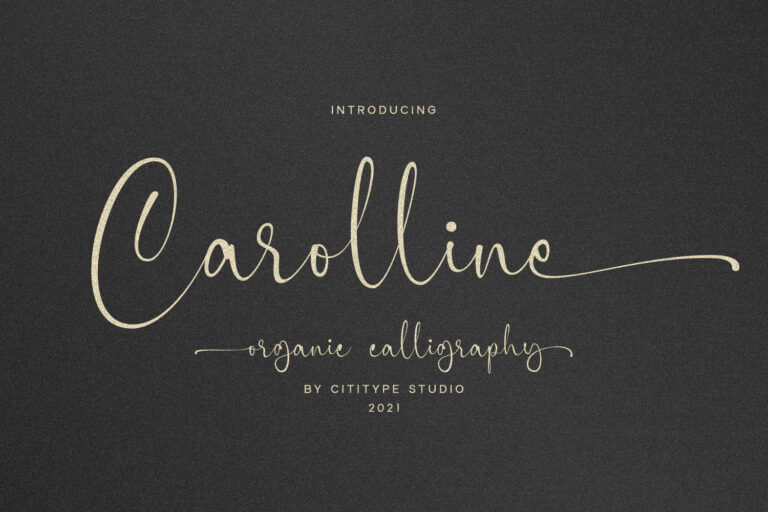
Carolline
Carolline is a romantic and stylish handwritten font. It features a varying baseline, smooth lines, gorgeous glyphs and stunning alternates. Carolline looks beautiful on a variety of designs requiring a personalized style, such as wedding invitations, thank you cards, weddings, greeting cards, logos and so on.